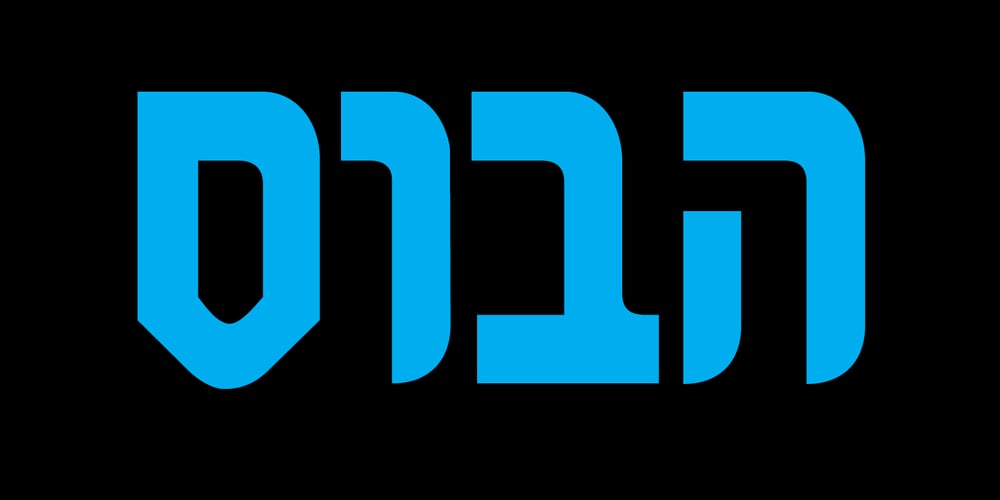
Turbina MF
Turbina MF font
Turbina MF Font Family was designed by Dor Cohen and published by Masterfont. Turbina MF contains 2 styles and family package options. Geometric forms make this elegant font family a great companion for titles, invitations and signs, indoor and outdoor.